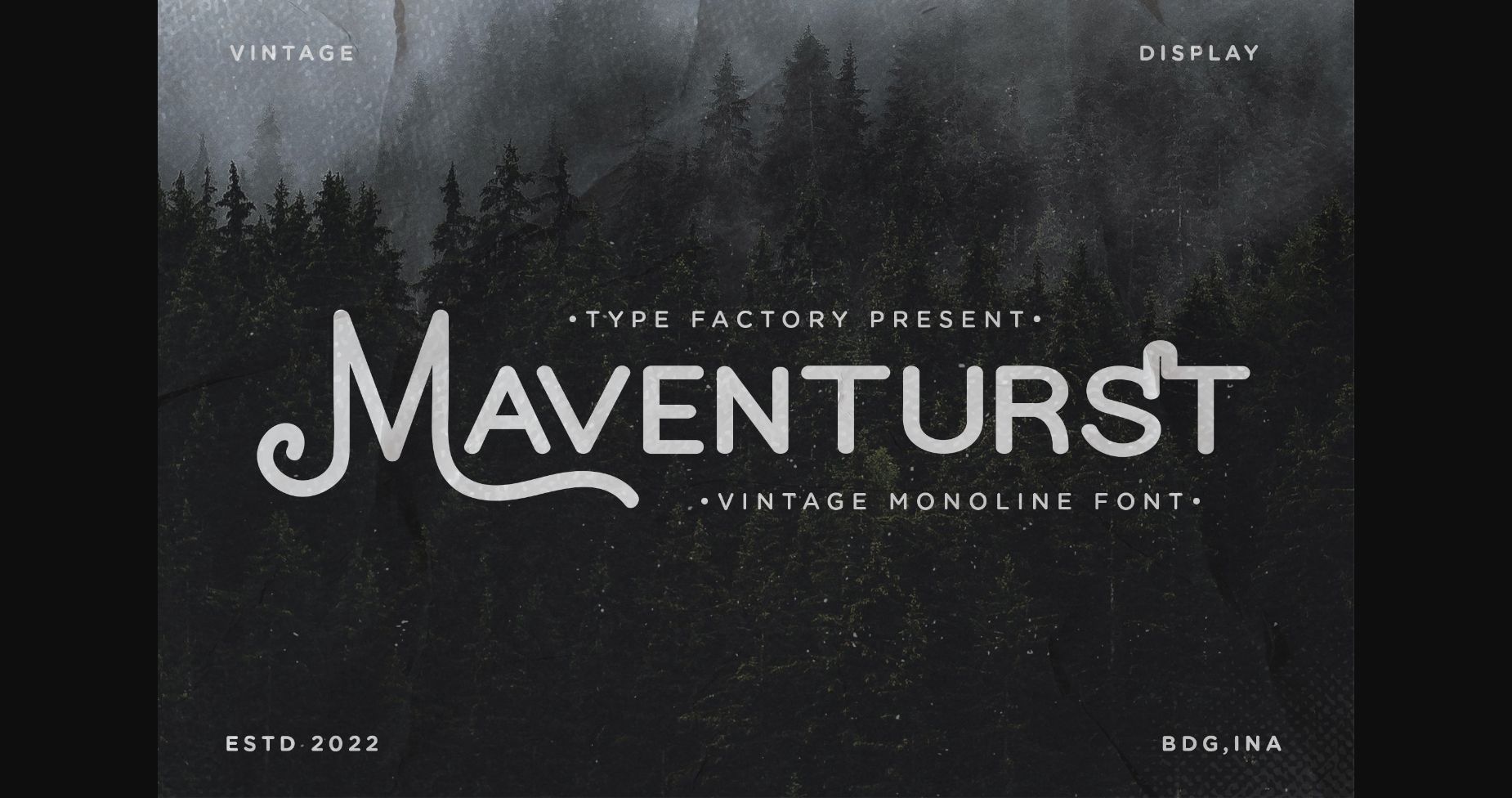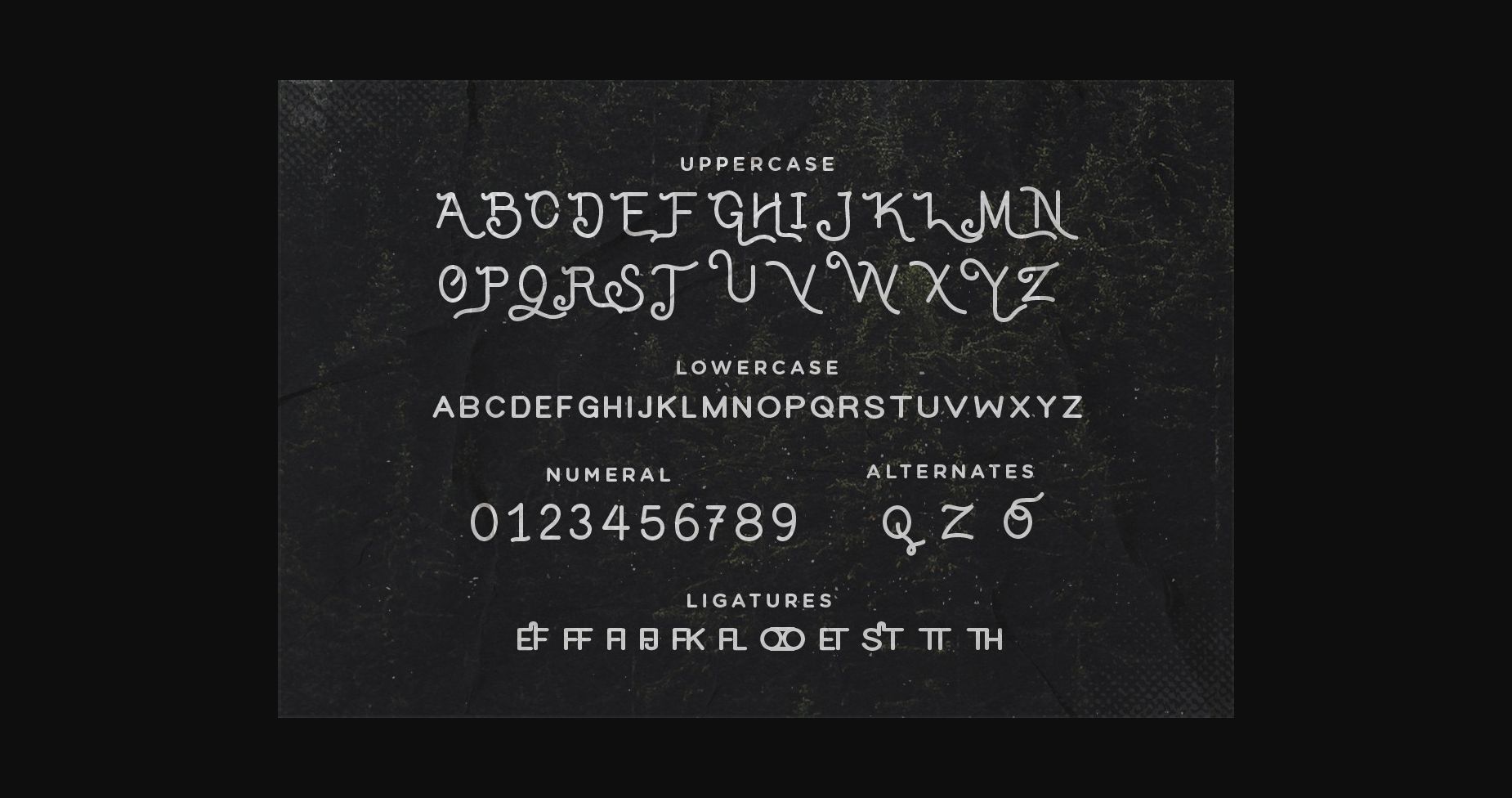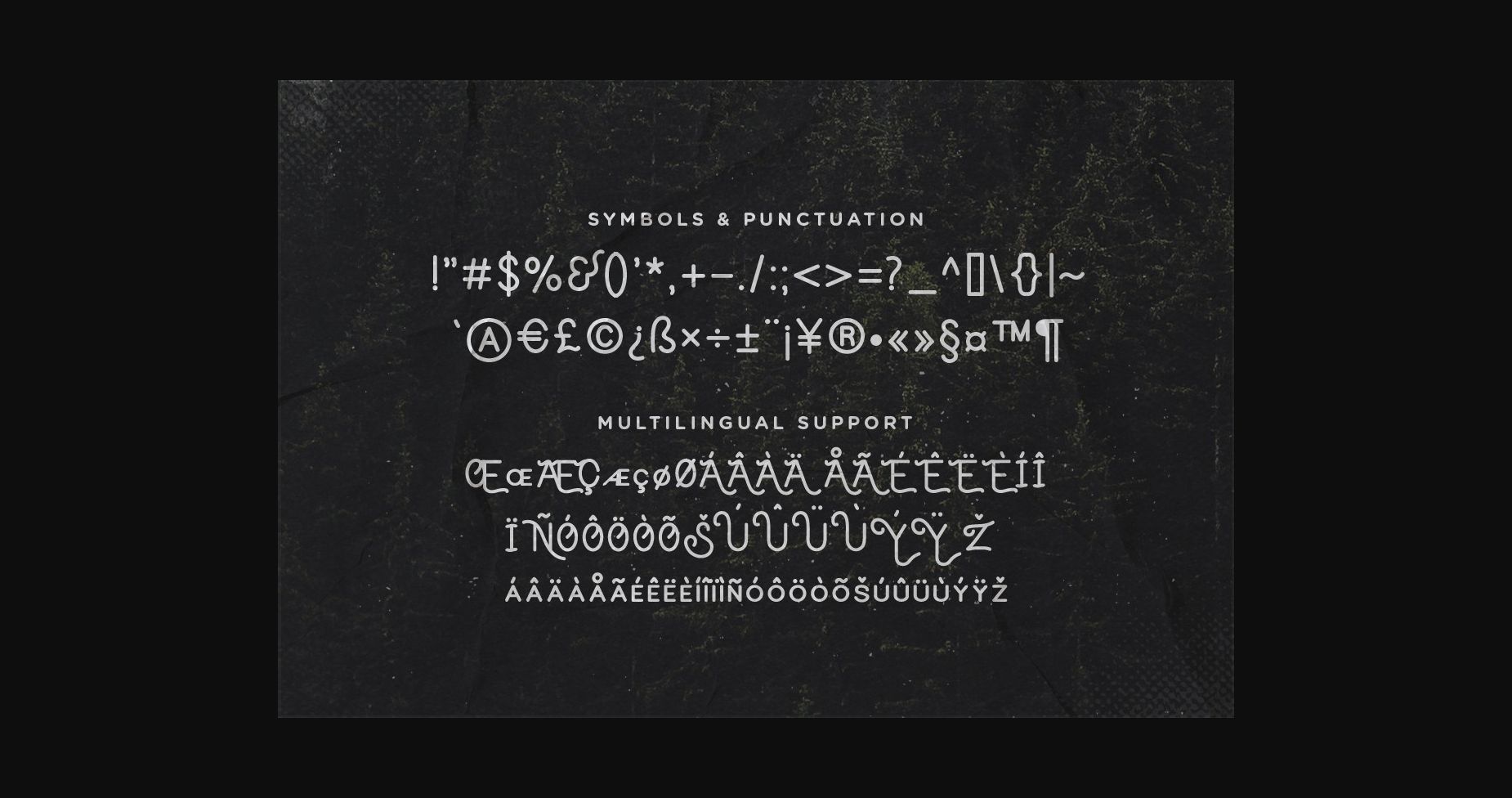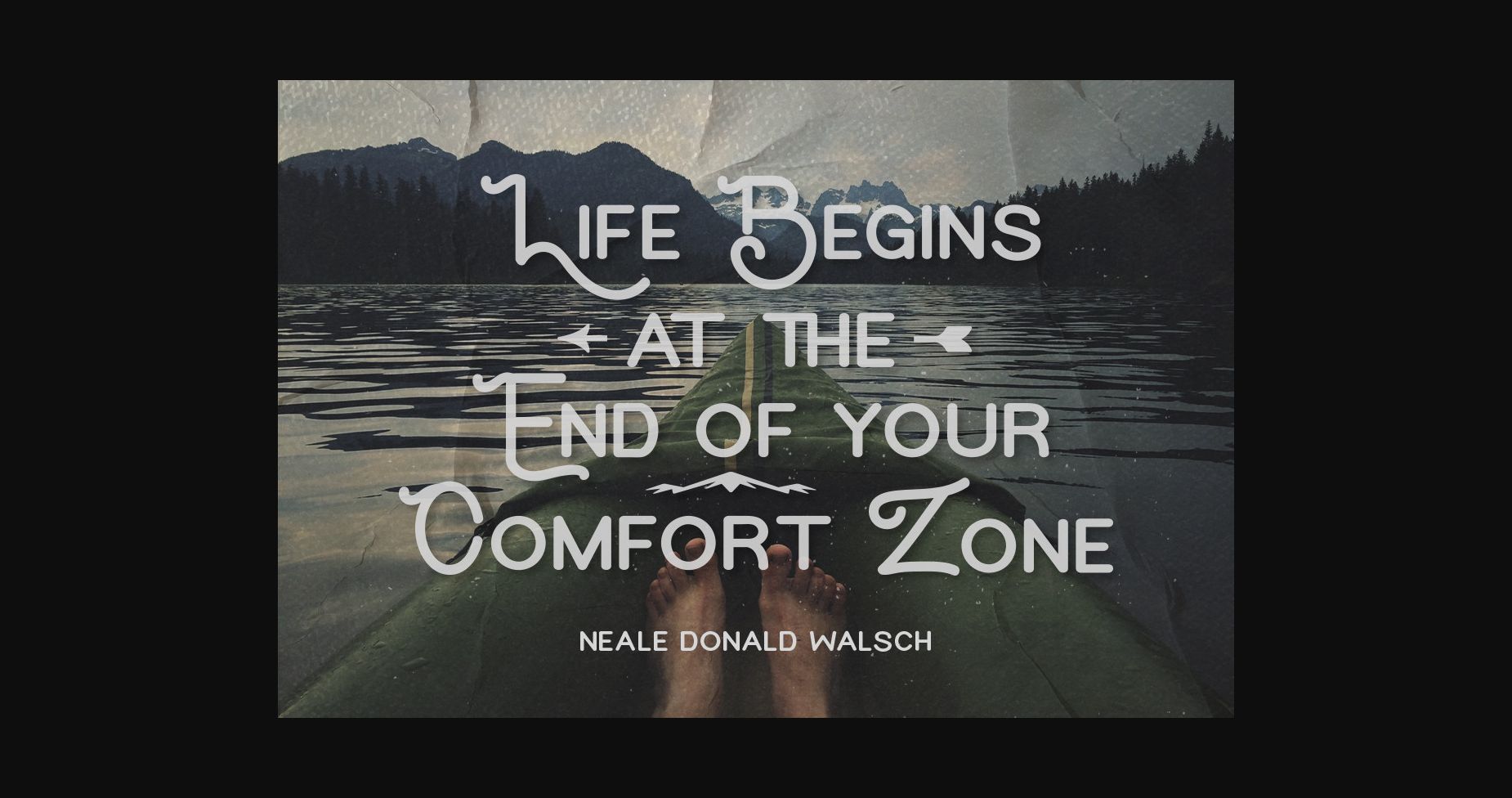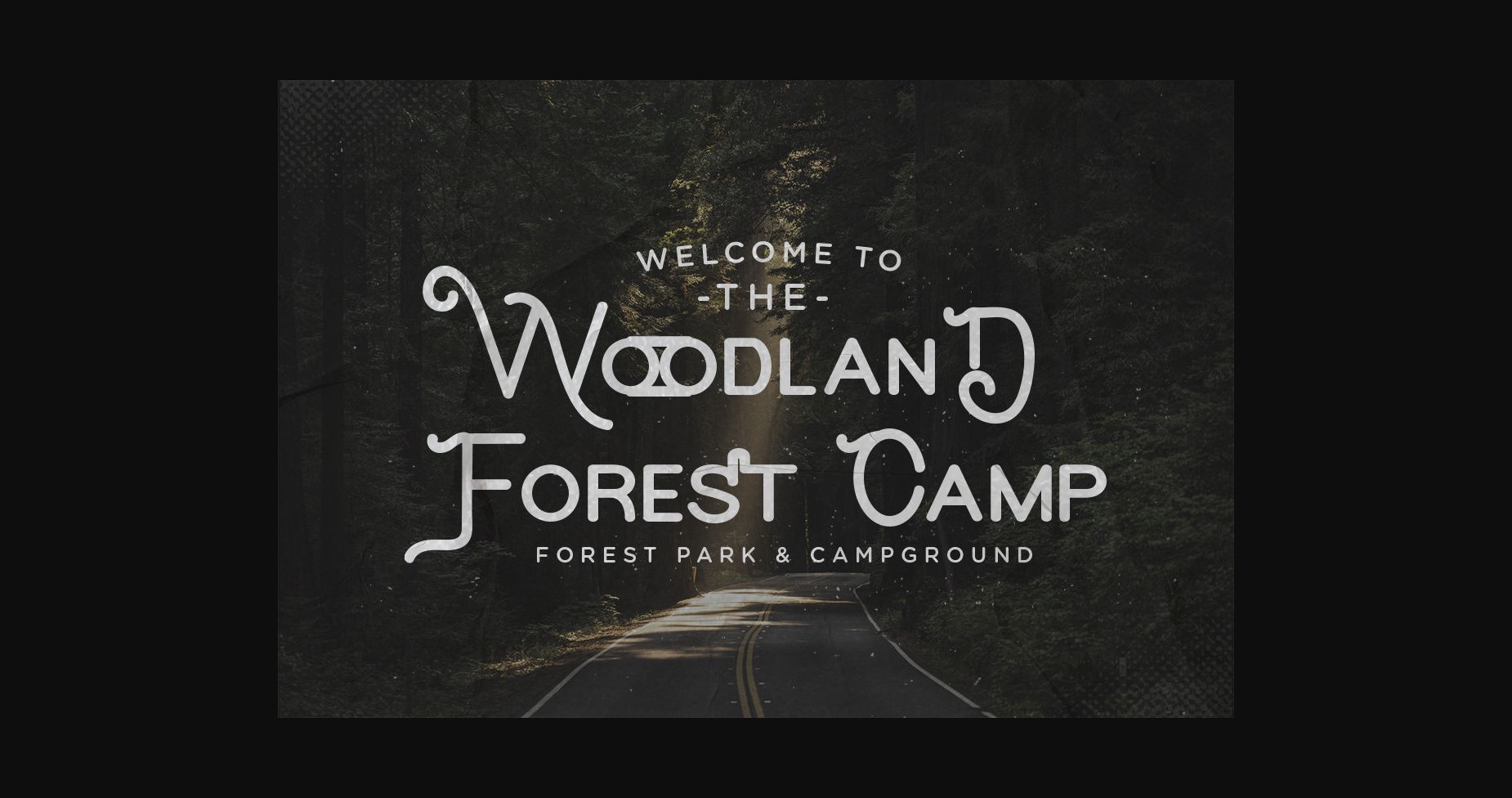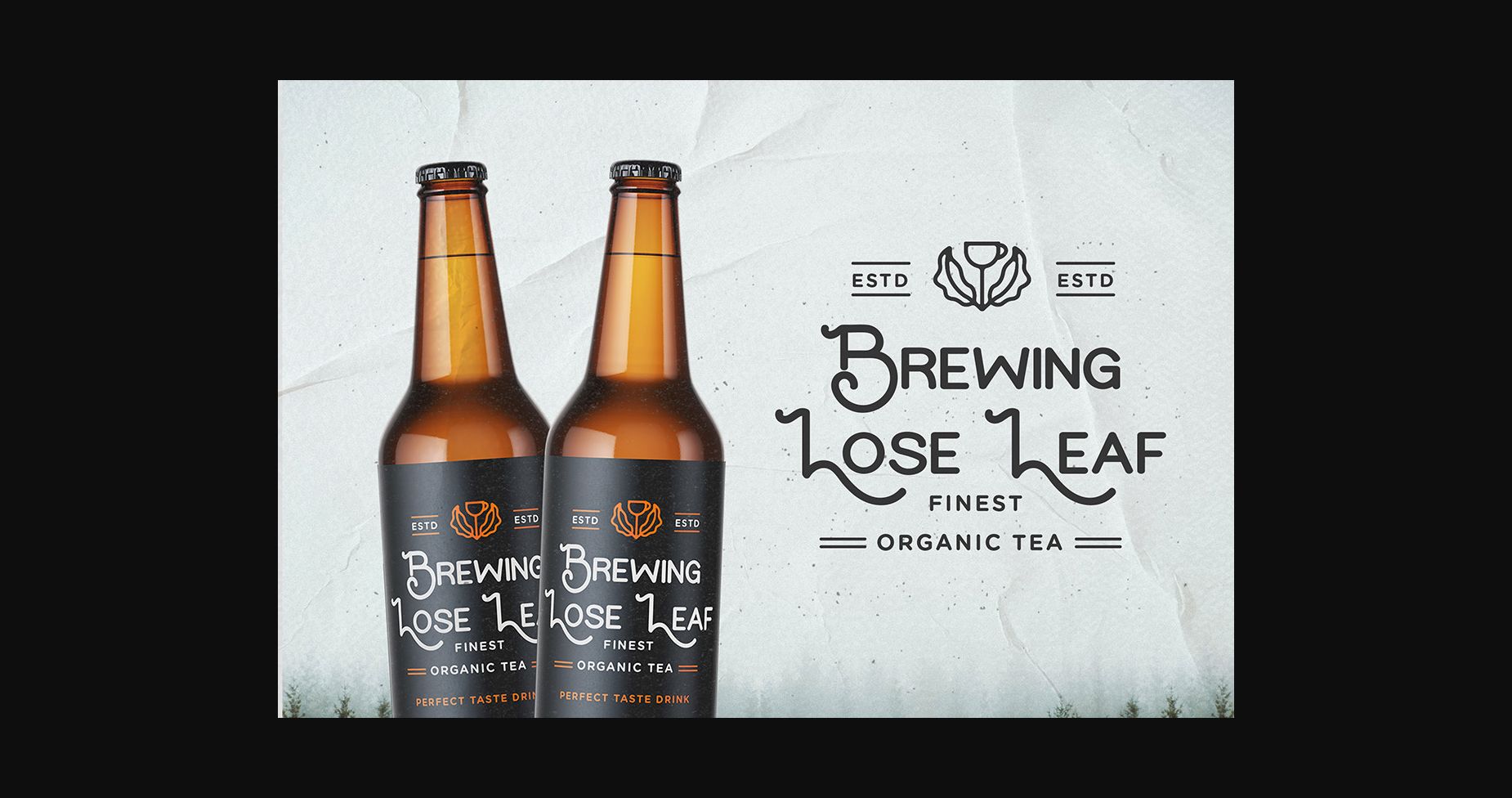
Maventurst Font
About Maventurst Font
Maventurst is a monoline sans serif typeface with smooth characters and a vintage look.
Maventurst is suitable for logos, taglines, quotes, product packaging, posters, and much more!